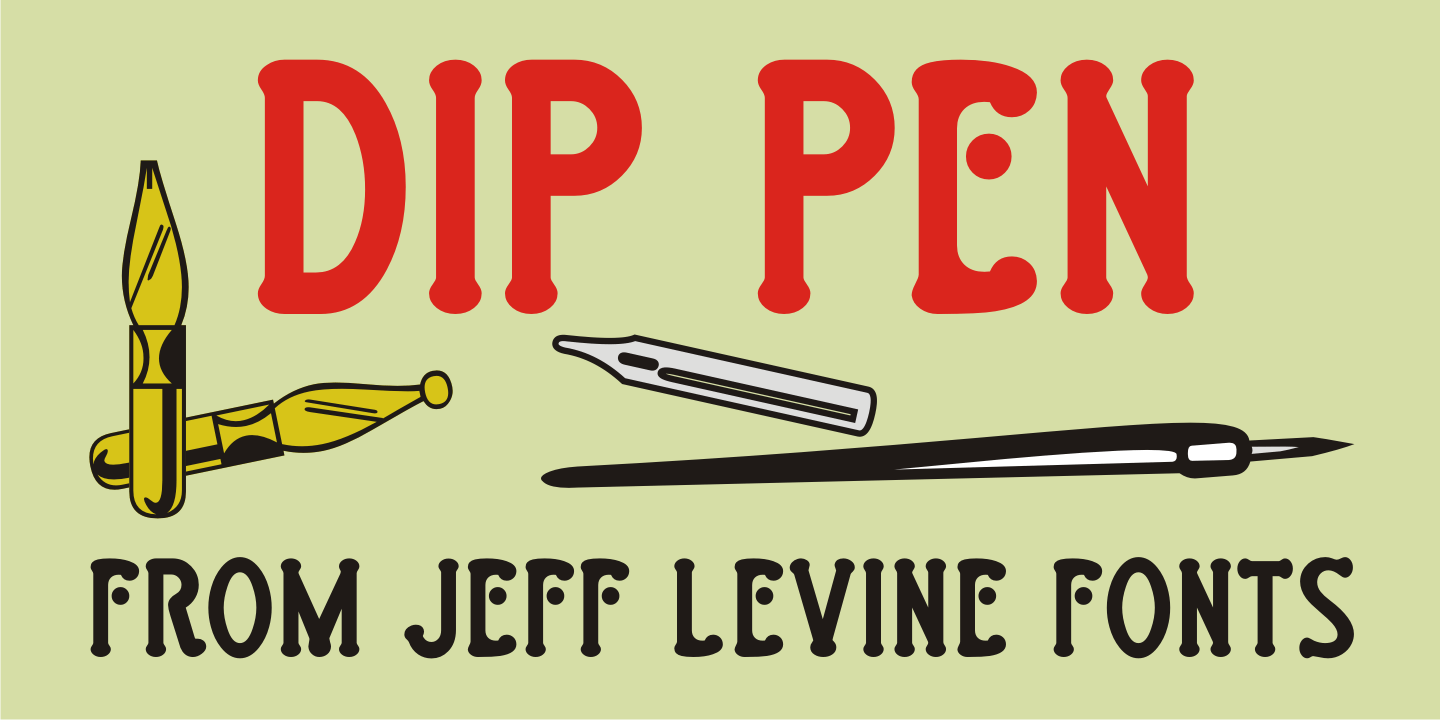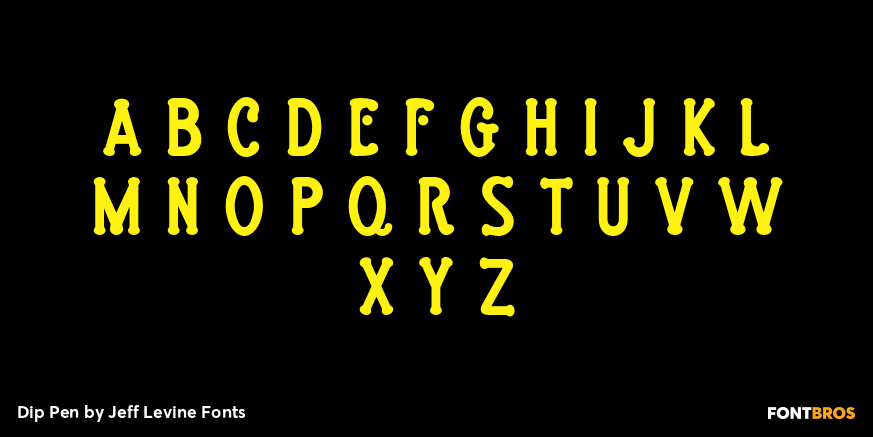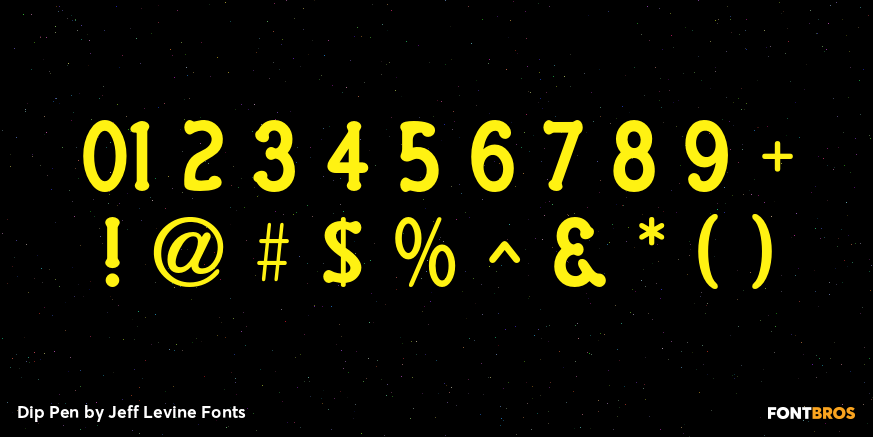
Dip Pen
1917's 'If I Catch the Guy Who Wrote Poor Butterfly” was the answer to the 1916 hit 'Poor Butterfly” [by Raymond Hubbell and John Golden], which in turn was inspired by the Puccini opera 'Madame Butterfly”.
'Poor Butterfly” was so popular that this 'answer” tune had as part of its lyrics 'that melody haunts me in my sleep; it seems to creep.”
Nonetheless, the sheet music for William Jerome and Arthur Green's comic lament had the title hand lettered with an oval nib lettering pen, now availably as a digital type face called Dip Pen JNL.